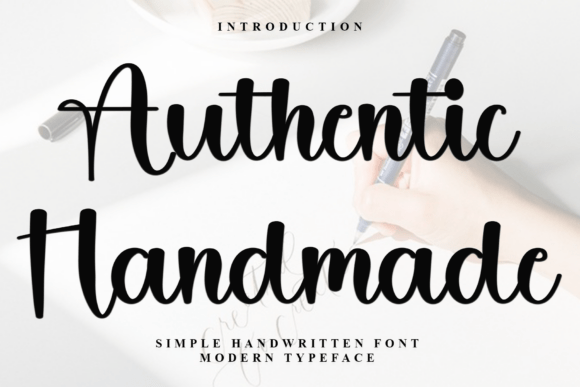
The Power of Authentic Handmade: A Font that Speaks to Your Creative Soul
I’ll never forget the moment I stumbled upon the perfect font for a client’s branding project. I had been searching for hours, scrolling through font libraries and testing out different styles, but nothing seemed quite right. That was until I discovered Authentic Handmade, a gorgeous and bold handwritten font that instantly captured the essence of the brand. In this article, I’ll share my experience with Authentic Handmade, and explore its features, uses, and alternatives.
A First Impression: What Makes Authentic Handmade Special
Authentic Handmade is a stunning handwritten font, crafted to give your headlines and logotype projects a stylish touch. This font reads as strong, confident, and dynamic, and can add tons of nostalgic character to your designs. Whether you’re a designer, crafter, or creative hobbyist, Authentic Handmade is sure to become a favorite in your font library.
So, what makes Authentic Handmade so special? Here are a few things I love about this font:
• ✨ Unique character: Authentic Handmade has a distinct, hand-crafted feel that’s hard to find in digital fonts.
• ✅ High versatility: This font works beautifully in a variety of design contexts, from logos and headlines to packaging and signage.
• 💫 Excellent legibility: Despite its bold, expressive style, Authentic Handmade remains surprisingly legible, even at smaller sizes.
Of course, no font is perfect, and Authentic Handmade has a few minor quirks:
• 🤔 Limited suitability for body text: While Authentic Handmade is amazing for headlines and titles, it’s not the best choice for longer blocks of text.
• ⚠️ Occasional kerning issues: As with any font, you may need to adjust kerning manually to achieve optimal results.
Exploring Alternatives: Similar Fonts to Authentic Handmade
While Authentic Handmade is a standout font, you may also want to consider these similar alternatives:
• Pacifico: A beautiful, modern script font with a relaxed, beachy vibe.
• Great Vibes: A bold, expressive script font perfect for headlines and titles.
• Lobster: A classic, elegant script font suitable for formal designs.
• Rock Salt: A fun, casual handwritten font ideal for creative projects.
The Story Behind Authentic Handmade: Designer Inspiration
While the true story behind Authentic Handmade may be unknown, it’s easy to imagine a designer pouring their heart and soul into crafting such a beautiful font. Perhaps they drew inspiration from vintage signs, hand-painted murals, or elegant calligraphy. Whatever the inspiration, the end result is a font that feels both timeless and modern.